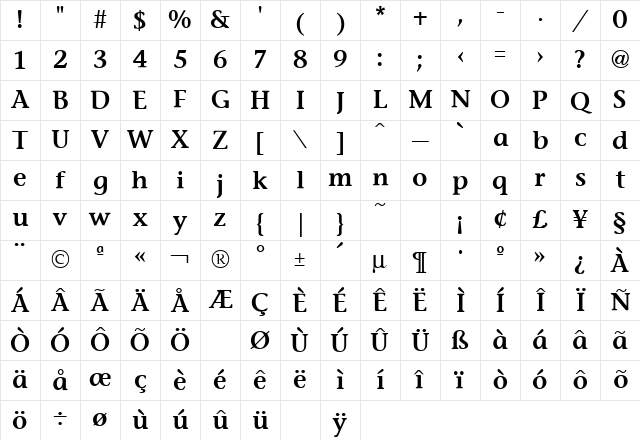
Stone Bold Free Font
Stone Bold
Stone Family
Design Context for Stone
Stone is a composed and adaptable typeface that performs quietly and consistently across a wide range of design contexts. Its bold stroke weight gives it real presence on the page.